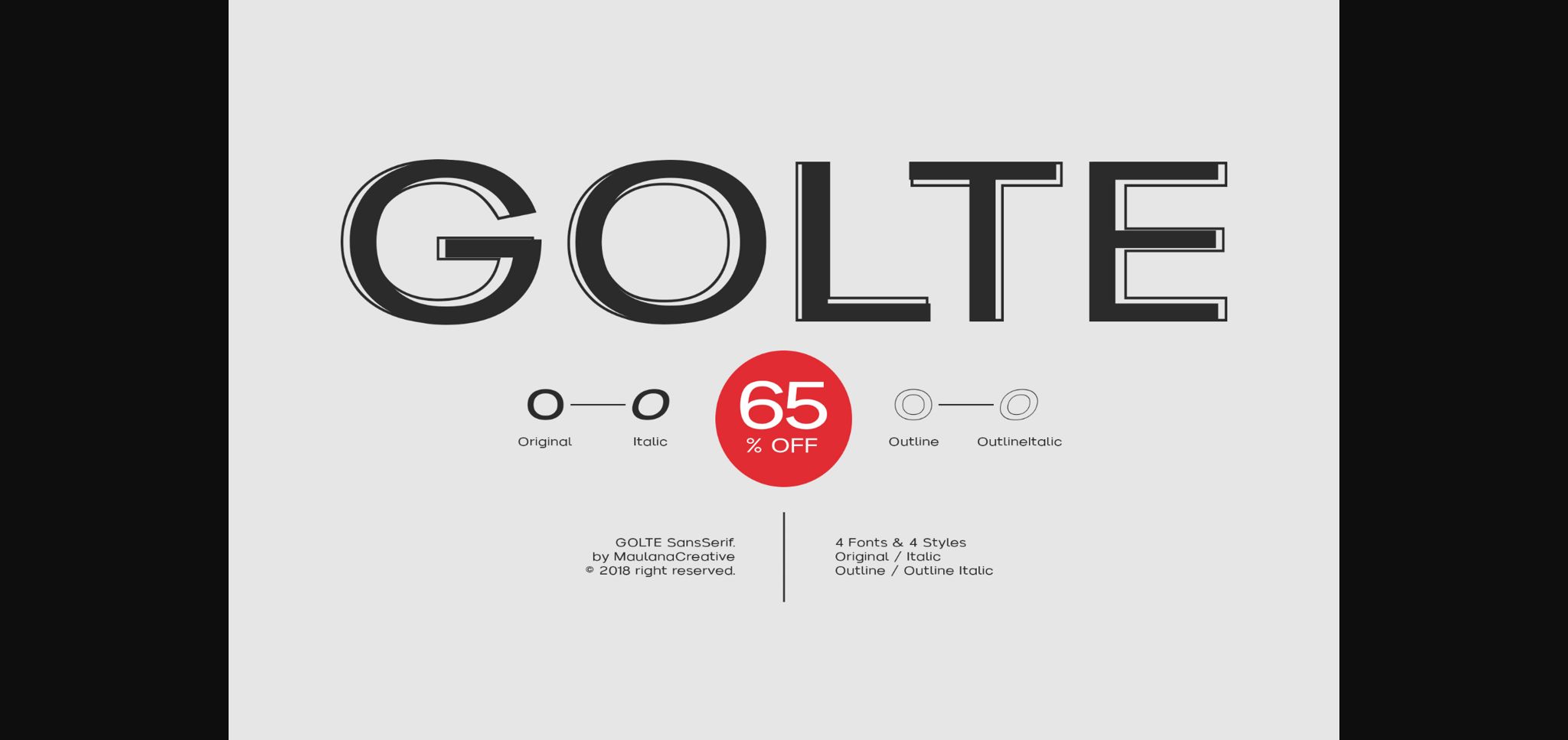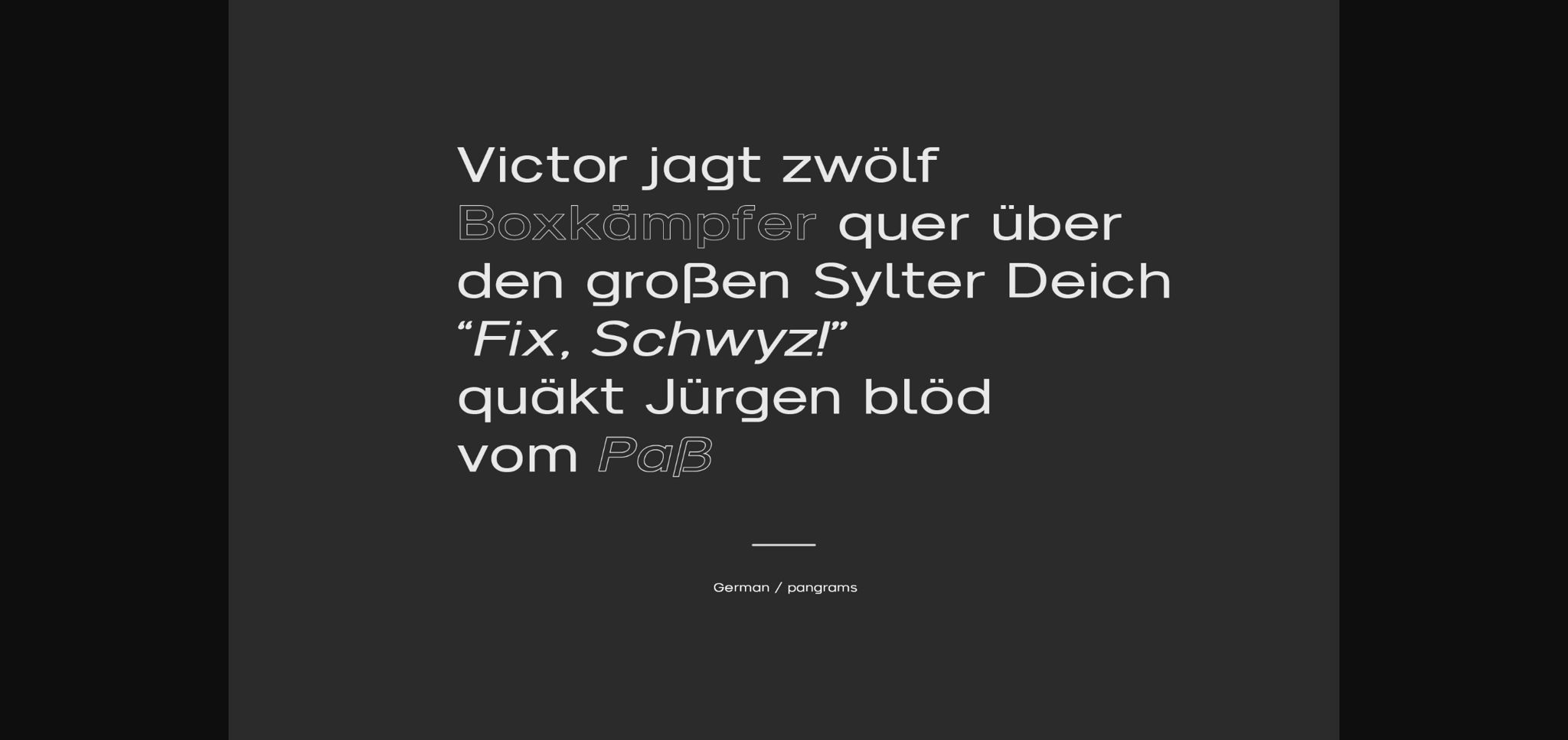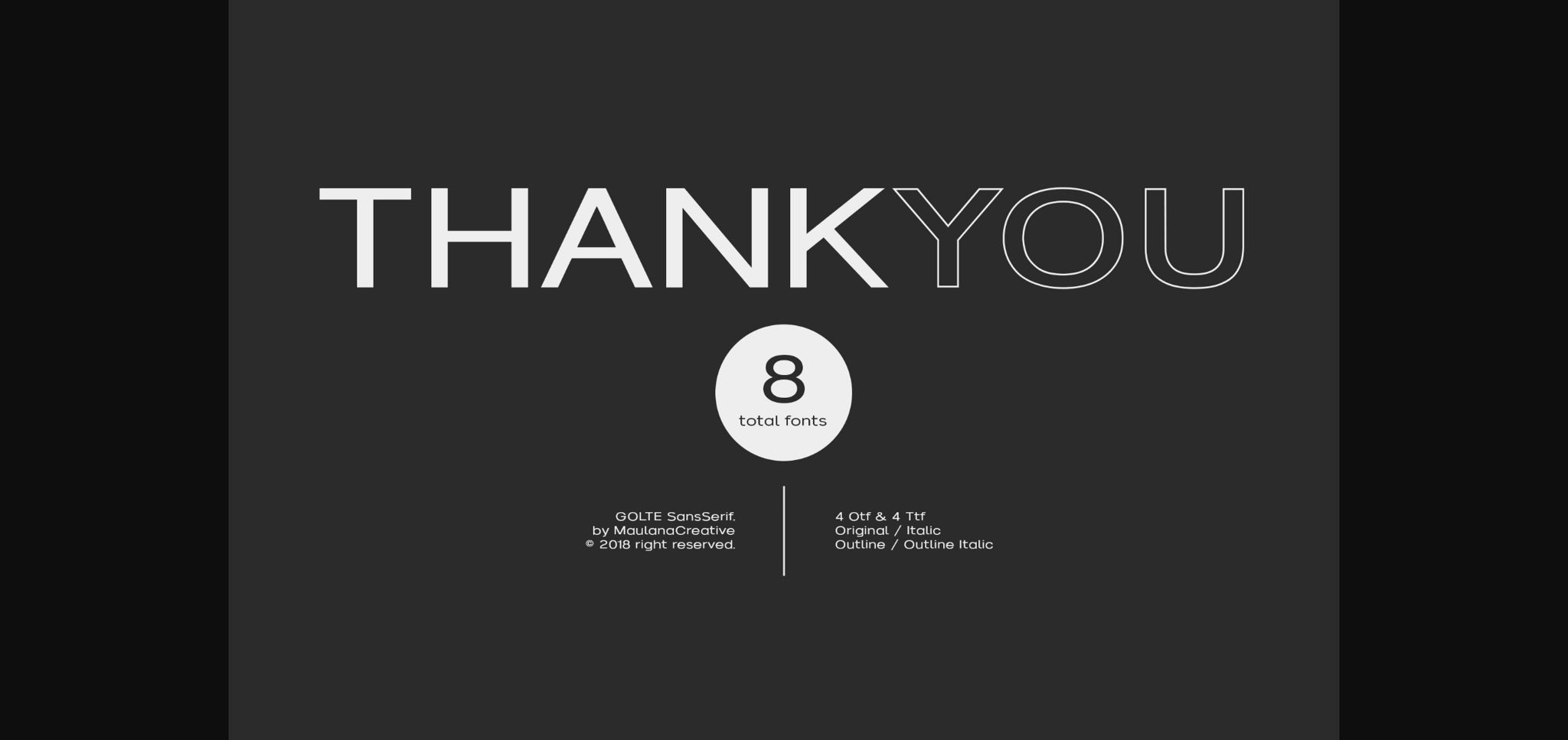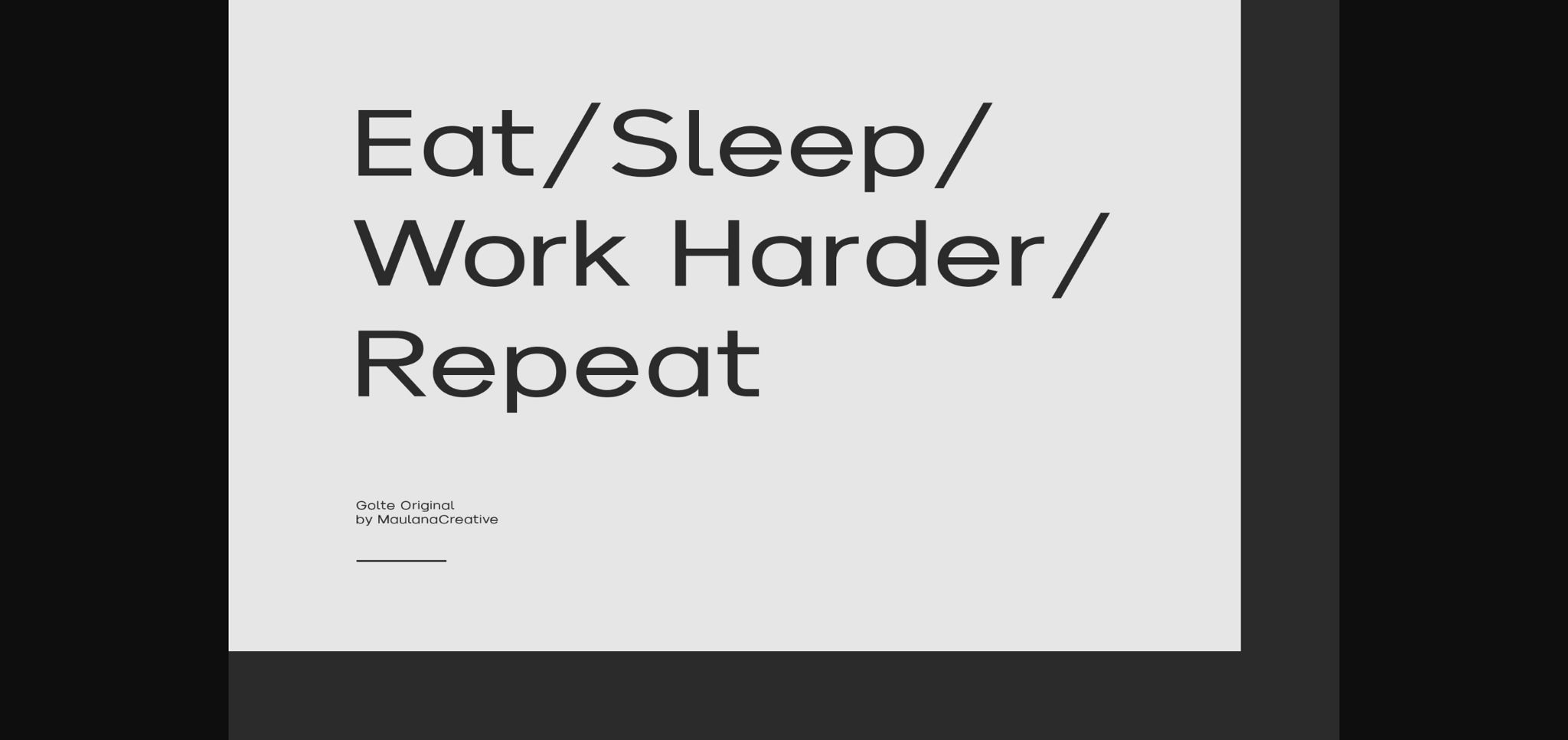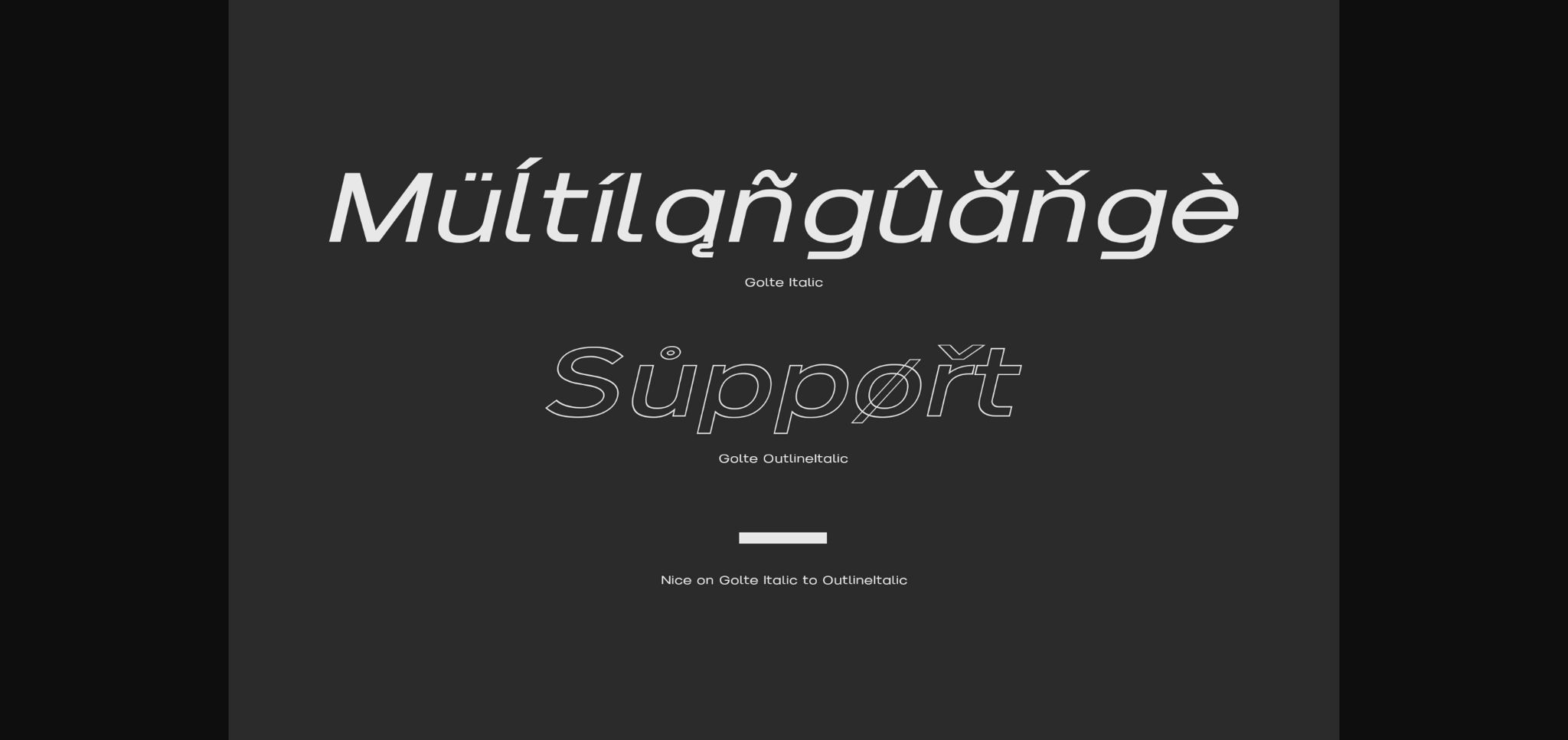
About Golte Font
Golte is a great sans serif font. It comes packed in 4 styles and it will look particularly adept when used in logos, branding, packaging design, and much more. This masterfully designed typeface is a true must-have.